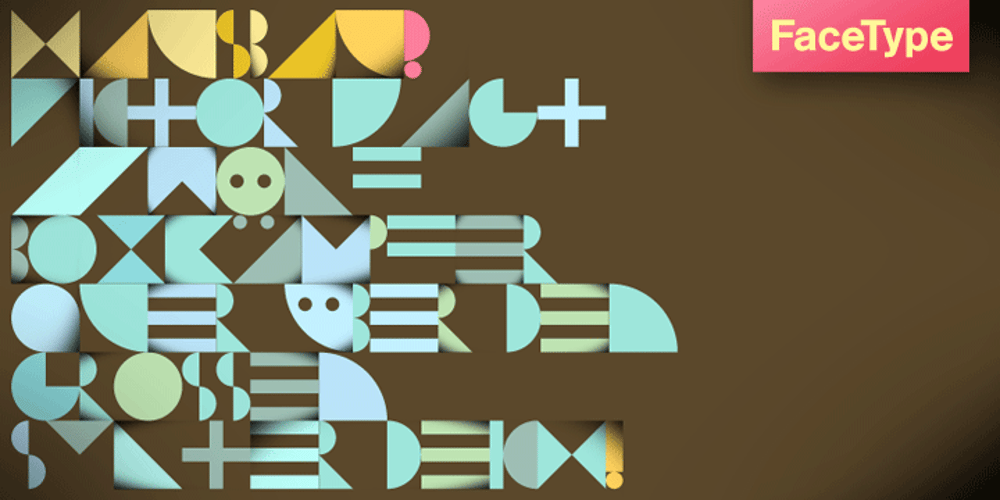
Hausbau
Hausbau font
Hausbau Font Family was designed by Marcus Sterz and published by FaceType. Hausbau contains 1 styles and family package options. Hausbau is a radical geometric font, inspired by the German Bauhaus.